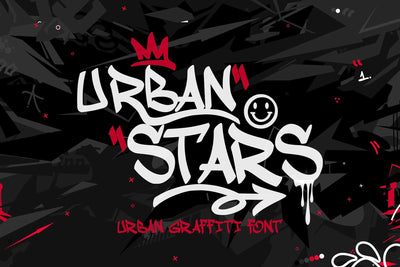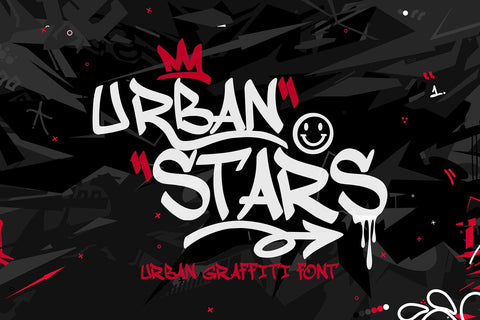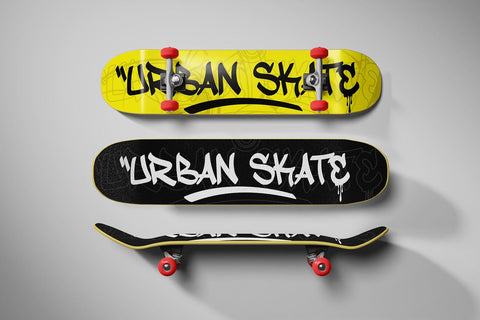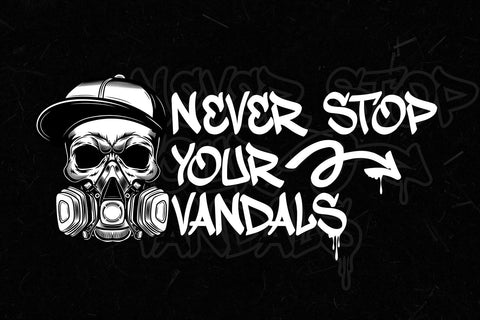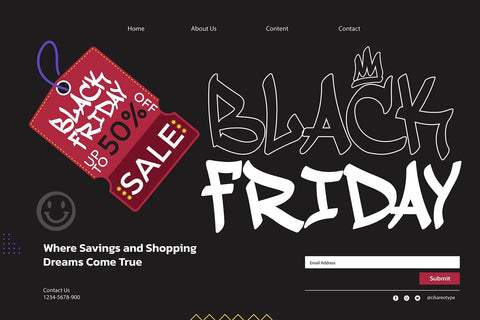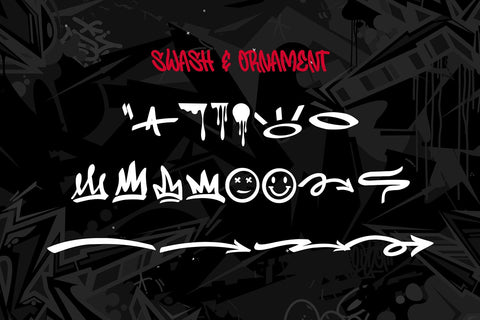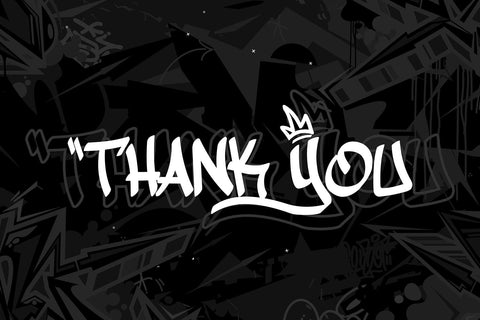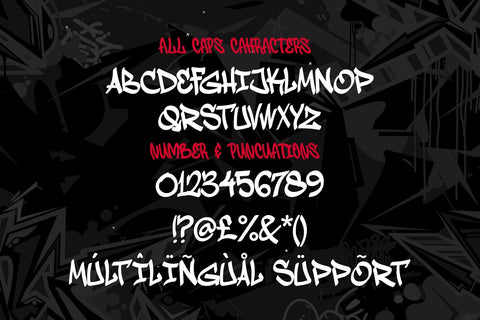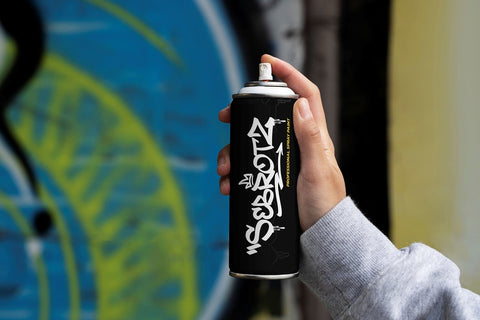
Urban Stars - Swash Handlettering mono Graffiti font
"Urban Stars" is a captivating handwriting monoline graffiti font that exudes a sense of urban flair and artistic style. Each character is meticulously designed with a smooth, continuous line that captures the essence of freehand graffiti. The inclusion of elegant swashes within the characters adds a unique and sophisticated touch, enhancing the overall visual appeal. Perfect for street art-inspired projects, urban-themed designs, and any creative endeavor that requires a stylish and expressive typographic element, "Urban Stars" brings a dynamic and modern edge to your work.